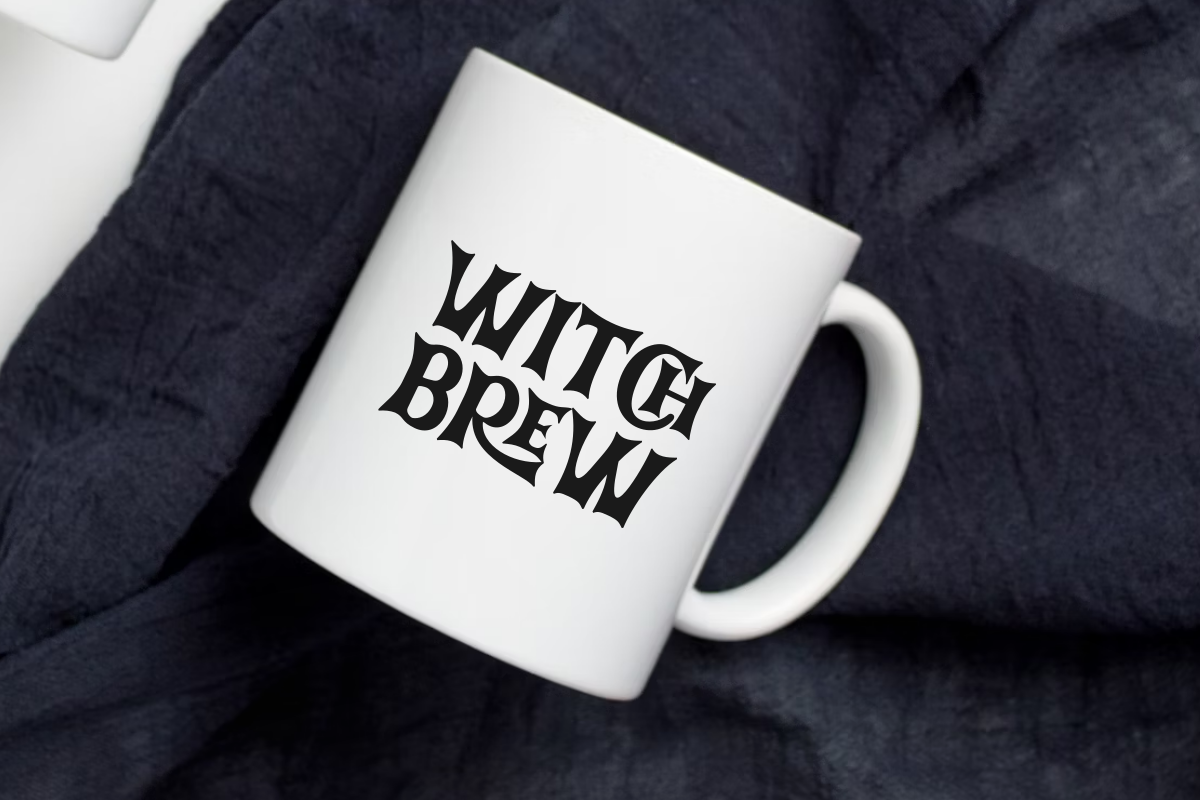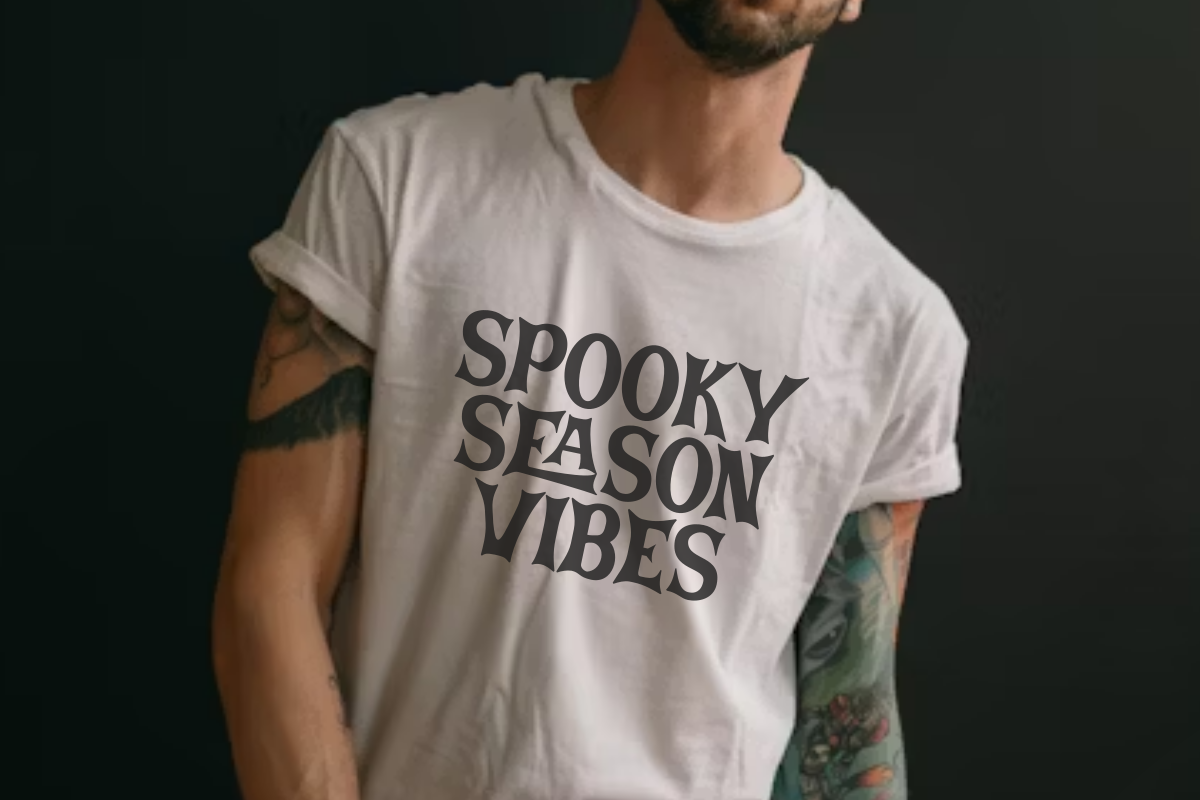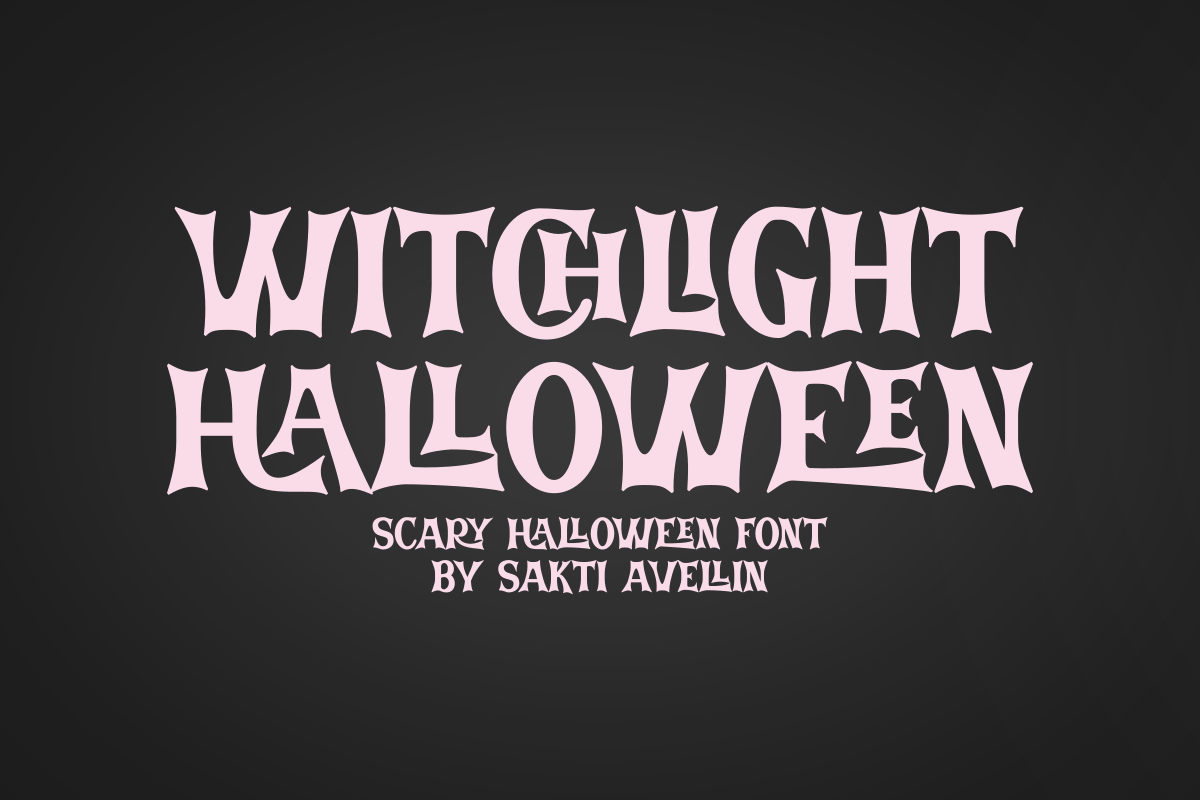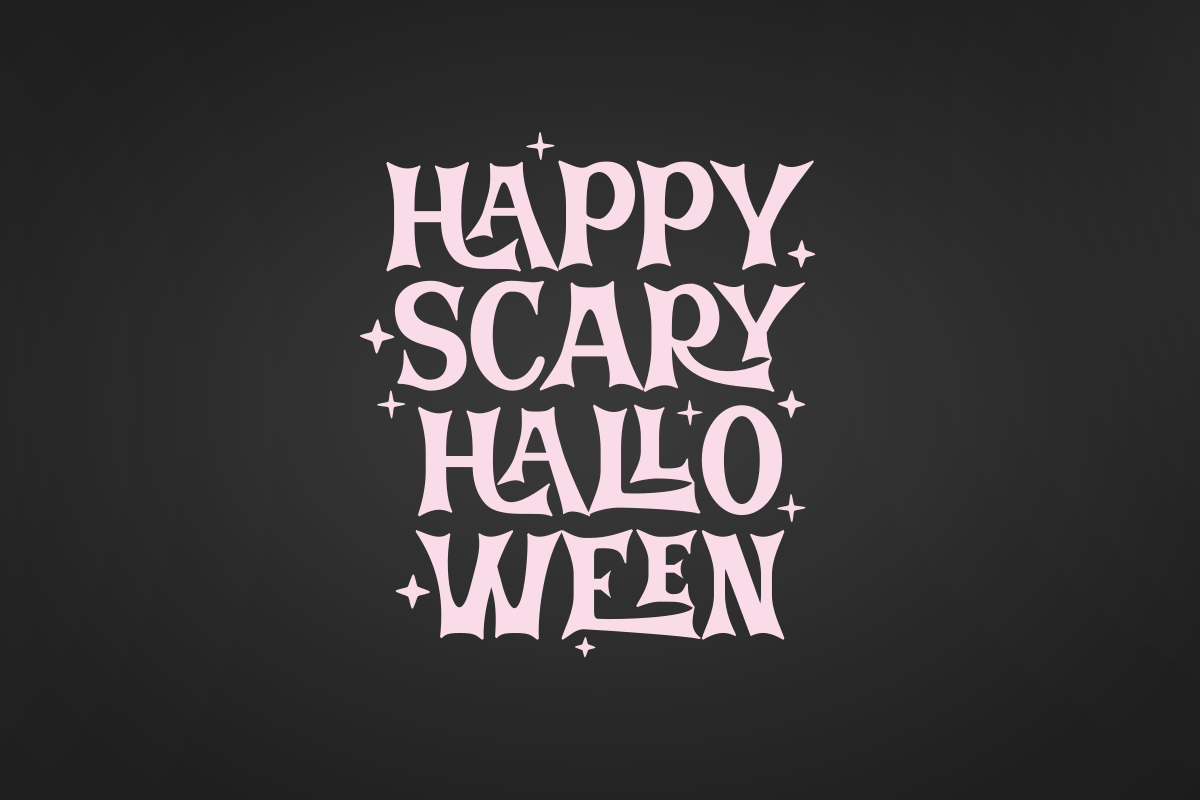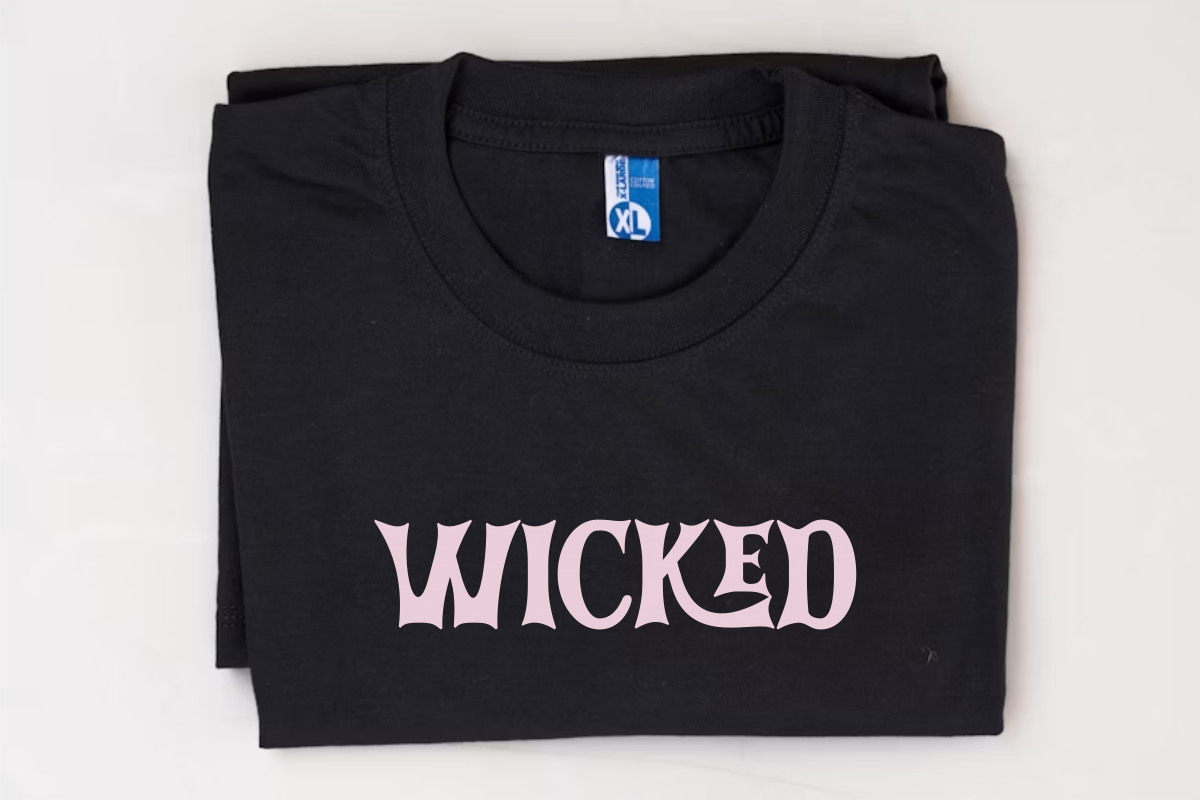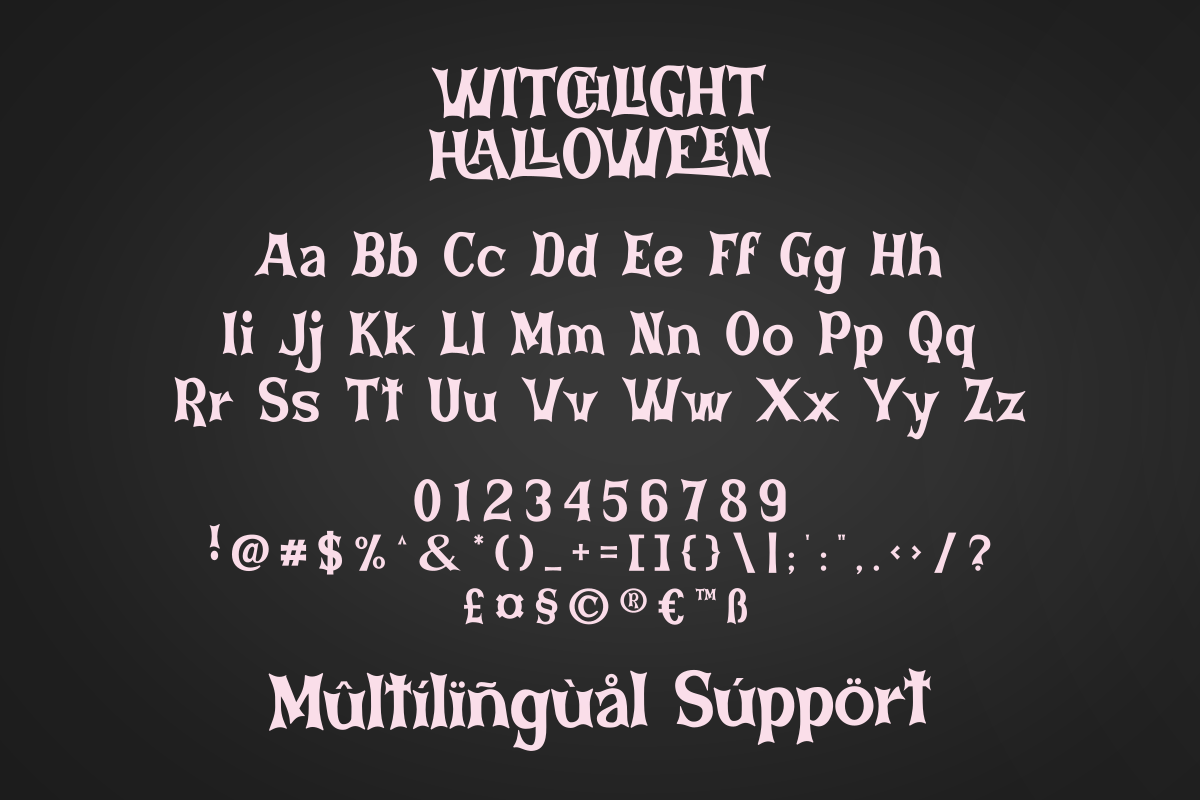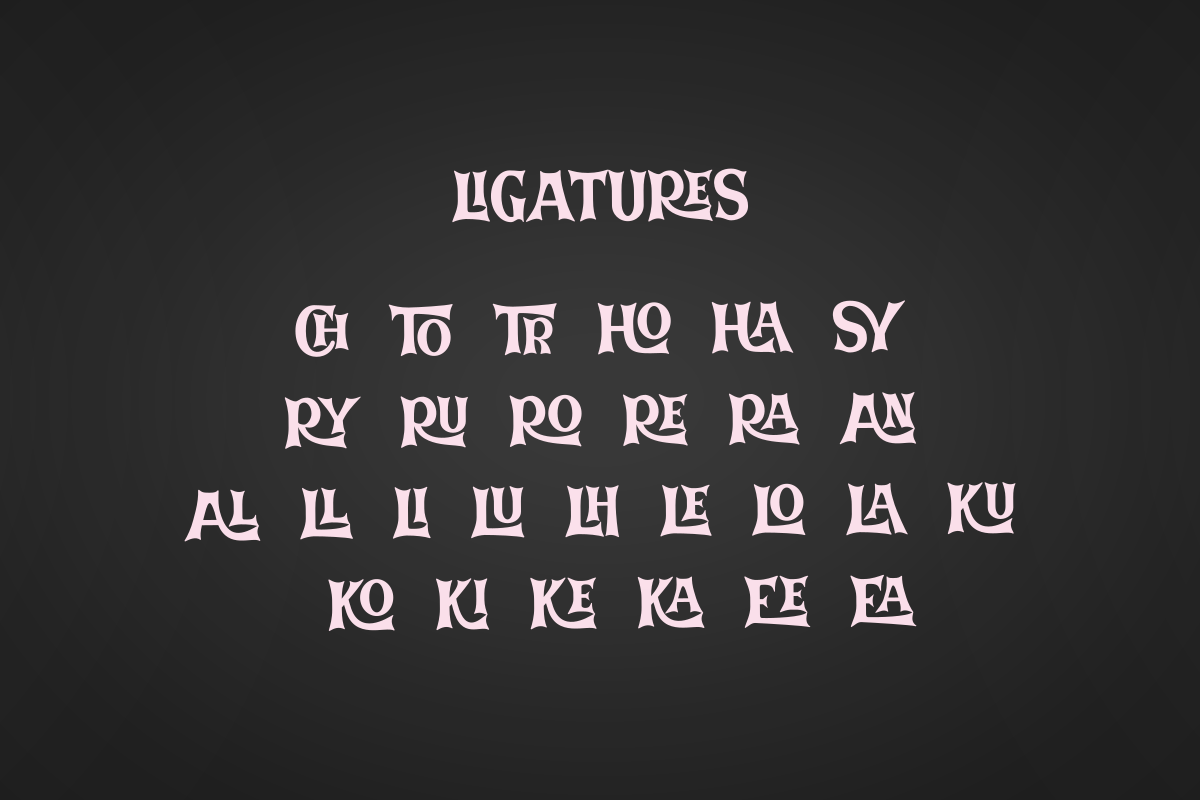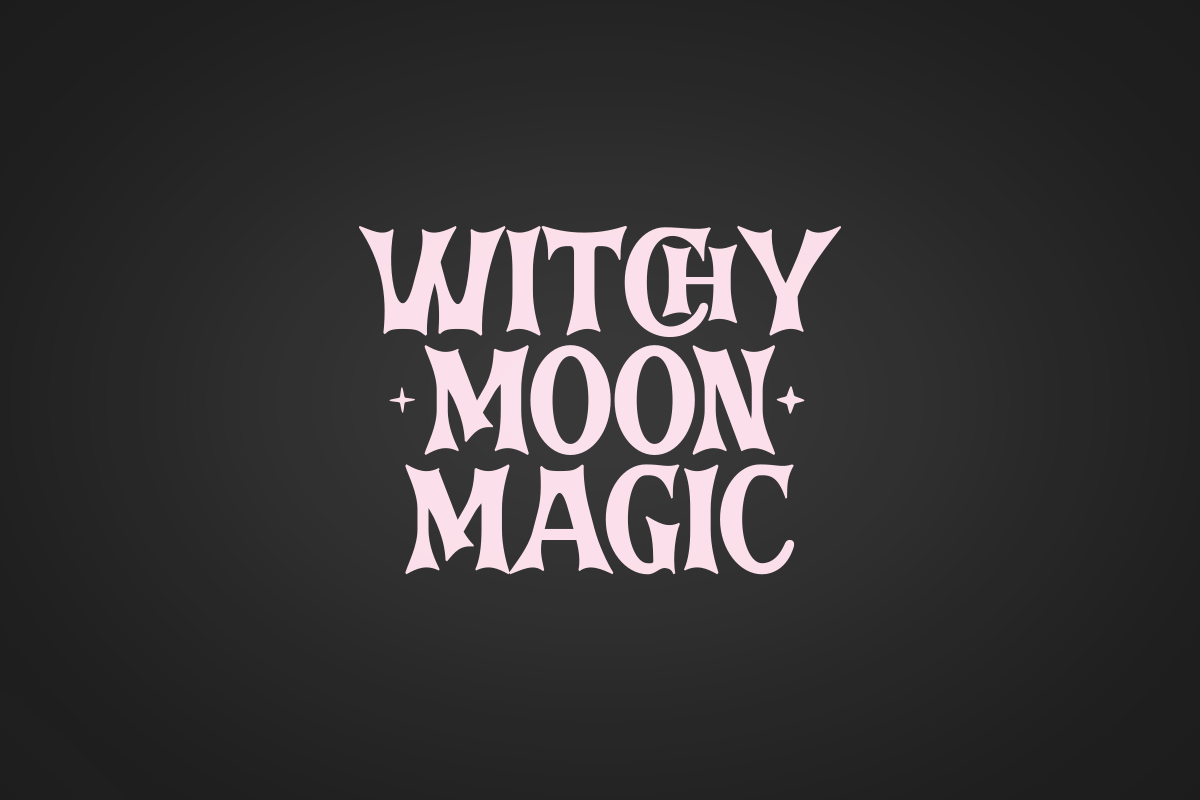
Witchlight Halloween - Display Font
Witchlight Halloween is a spooky, yet stylish decorative serif font that perfectly captures the eerie elegance of the haunted season. This scary Halloween font features dramatic, unique serifs and an elongated form, making it essential for Halloween invitations, eerie seasonal branding, ghost-themed t-shirt designs, spooky posters, and frightening event graphics. Its striking and slightly unsettling style ensures it is a powerful display typeface for headlines and product packaging, appealing to a wide audience seeking a sophisticated horror aesthetic. Conjure up chilling designs with this mesmerizing and dramatic horror font!